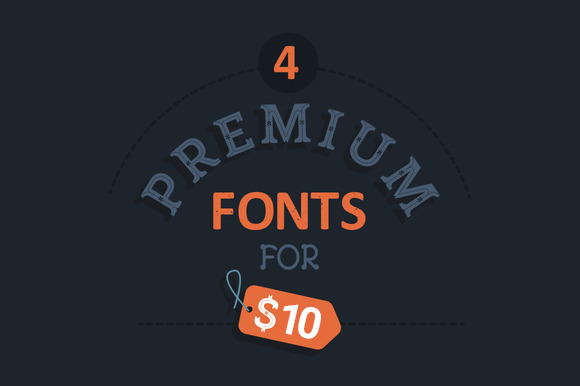
Pack - 4 Premium Fonts
1 - Vintage Break - Font Vintage Break is a high resolution letterpress font that’s vintage and authentic with a touch of grunge.
2 - Elisabeth - Font Elisabeth is an free uppercase e lowercase display typeface inspired by the classic sans serif font family's. This typeface is, because of his many alternative options, perfect for usage in posters, text, and headlines.
3 - Rose - Font Rose is a decorative, cute font, and was inspired by the band Rosie and Me.
4 - WindFlower - Font WindFlower is an capital initial uppercase display typeface inspired by the classic and vintage serif font family's. This typeface is, because of his many alternative options, perfect for usage in posters, text, and headlines.